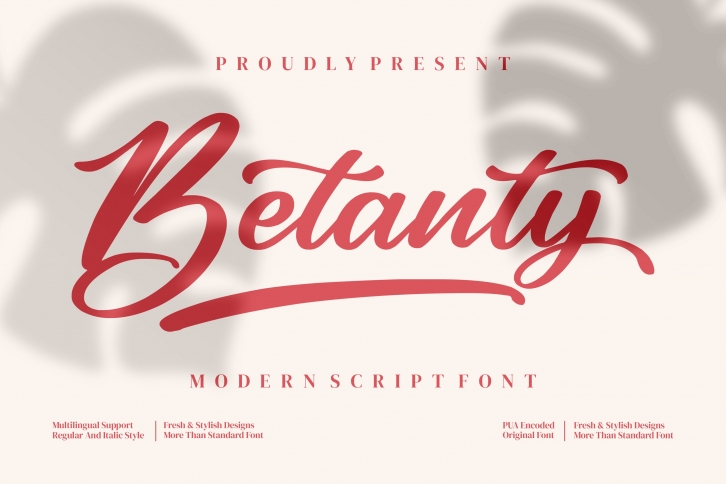
Betanty is a great font that was designed by Integritype Studio. Imagine the amount of combinations you can create using this font! The archive is 20.15 MB and it was released on August 23, 2021. Betanty looks beautiful on wedding invitations, greeting cards, logos, posters, labels, t-shirt designs, logos, business cards and is perfect for use in ink or watercolor works, fashion, magazines, packaging and food menus, children's books and more!